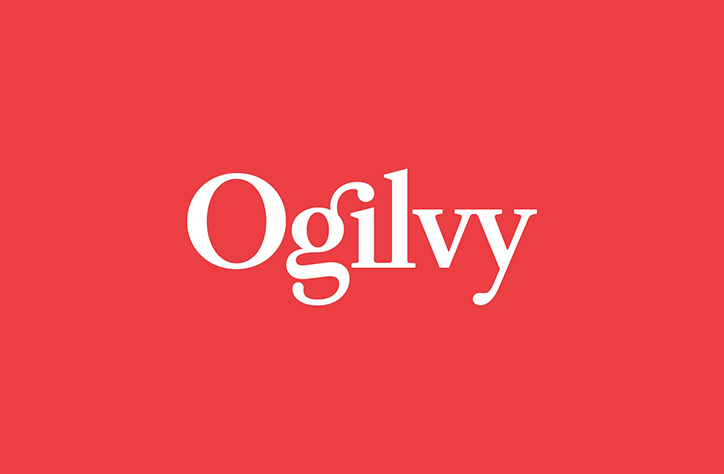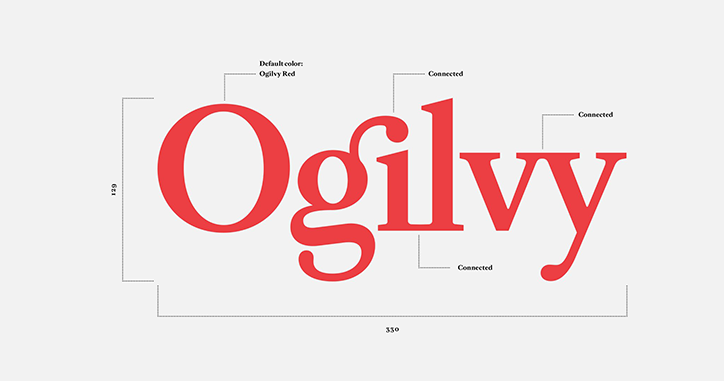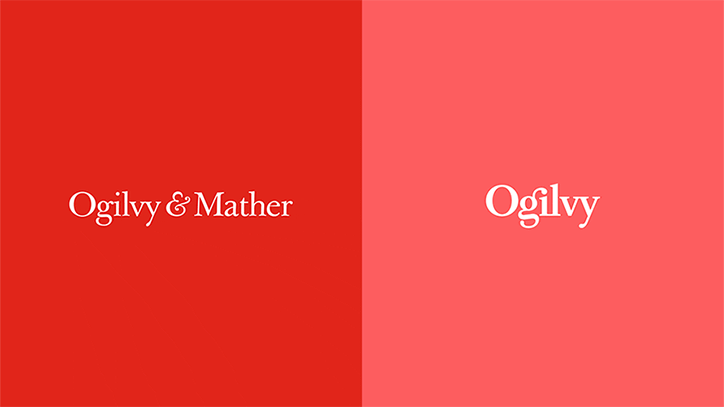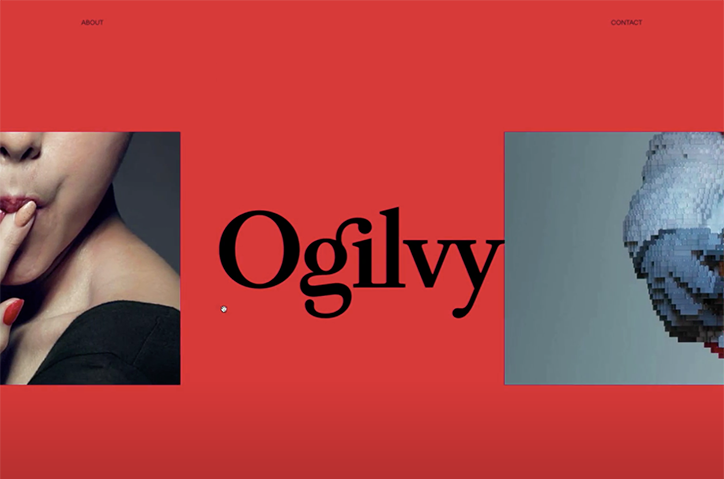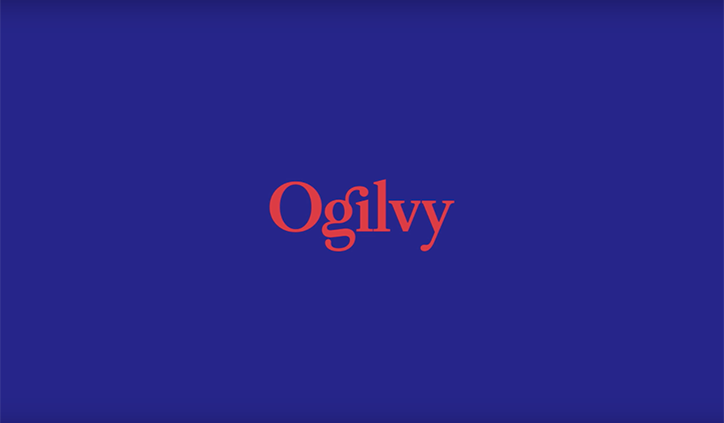
Advertising giant Ogilvy undergoes global rebrand and “re-founding” by design agency Collins
International advertising agency Ogilvy has rebranded, working with design agency Collins to redesign its logo, fonts, website and entire visual system, as well as “re-founding” in a synchronised global campaign. This event launches the advertising giant’s internal restructure, as the company has unified its collection of sub-brands to bring all its agencies under the Ogilvy Group umbrella.
Unveiled in The Wall Street Journal, the rebrand is the result of two years work under the company’s chief executive John Siefert, appointed to the role in 2016 having joined in 1979 as a summer intern. “We needed to greatly simplify the organisation around what I call an integrated enterprise agenda, not a holding company of all these different piece-parts,” Seifert tells WSJ, saying its mission statement is “making brands matter”.
Designed in a collaboration between the ad agency and Collins, a self-penned “independent brand experience design company”, the new logo ditches the “& Mather” part of its name, simplifying the logo to a single word, with subtle tweaks to its wordmark including a bolder, re-cut typeface and joined-up details between the “i” and “l”, and “v” and y”. The visual identity and design system maintains Ogilvy Red as its core colour and features the re-cut and customised fonts Ogilvy Serif and Ogilvy Sans. Lauren Crampsie, chief marketing officer for the agency, commented on Twitter that the branding represents “the agility, collaboration and creative connectedness” it wants to be known for.
As part of its repositioning, Ogilvy also released a short video comparing its adjustment of language and attitude since its founding 70 years prior, showing “before and after” mantras for the agency. For example, it shows one phrase “We sell. Or Else.” alongside its contemporary approach, “We change. Or else.”. It also replaces “Creative department” with “Creative network”; and “The consumer isn’t a moron. She is your wife.” with “She is your boss”. The latter alludes to its intentions to increase the gender pay gap at the agency and promote more women to partner. Seifert says 36% of its executive partners are women, currently, but in the next two years that will be 50%.
The @Ogilvy fonts have also been recut and customized as Ogilvy Serif and Ogilvy Sans. #NextChapter #MakeBrandsMatter pic.twitter.com/mj7eOUXIgt